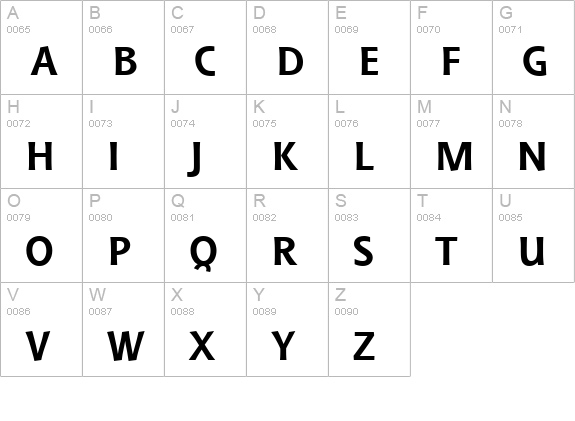
Shannon ATT Bold is a strong, high-contrast variant in the Shannon typeface family \xE2\x80\x94 well suited to headlines, attention-grabbing titles, and strong calls-to-action.
Introducing the exquisite and versatile Shannon ATT Bold font, a true gem among typefaces. With its bold and confident demeanor, this font exudes reliability and a strong presence, making it an ideal choice for captivating headlines, branding materials, and eye-catching designs. The Shannon ATT Bold font effortlessly merges classic elegance with modern appeal, offering a perfect blend of tradition and innovation. Its clean lines and well-defined strokes ensure excellent legibility, even in smaller sizes, making it suitable for a wide range of applications, from print to digital media. But what sets Shannon ATT Bold font apart is its exceptional accessibility. We are pleased to announce that this extraordinary font is freely available to download exclusively at FontsMarket.com, the leading destination for high-quality fonts. Embrace the power of Shannon ATT Bold font and unleash your creativity with its endless possibilities. Whether you are creating striking posters, elegant invitations, or professional presentations, this font will elevate your designs to new heights, leaving a lasting impression on your audience. Discover the beauty of Shannon ATT Bold font today and join the countless designers who have already fallen in love with its unique charm. Experience the freedom of creativity with this remarkable typeface, now just a click away at FontsMarket.com.